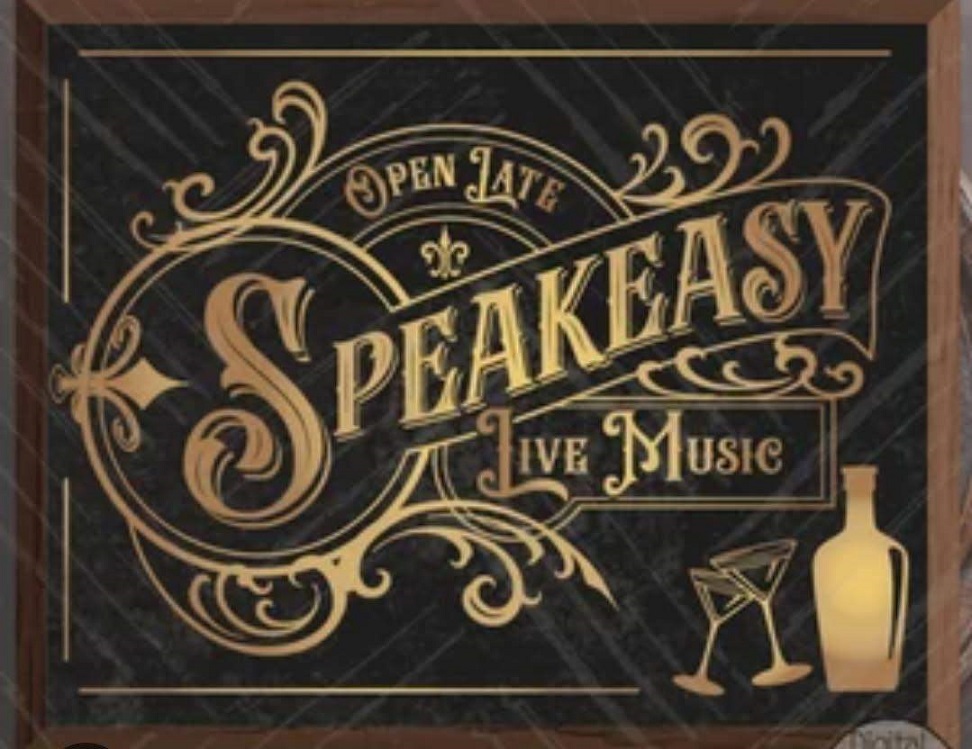
I have a client that wants me to match these fonts, see attached.
What the font cannot identify them.
I don’t recognize those fonts specifically, but they look like offerings from Letterhead Fonts.
Beardsons seems to be a reasonably good match for Speakeasy. The letters in the smaller words appear to be something else, at least some of them. On a sign like this, the letters might be based on a typeface, but modified by the designer to fit. Try searching for Victorian fonts.